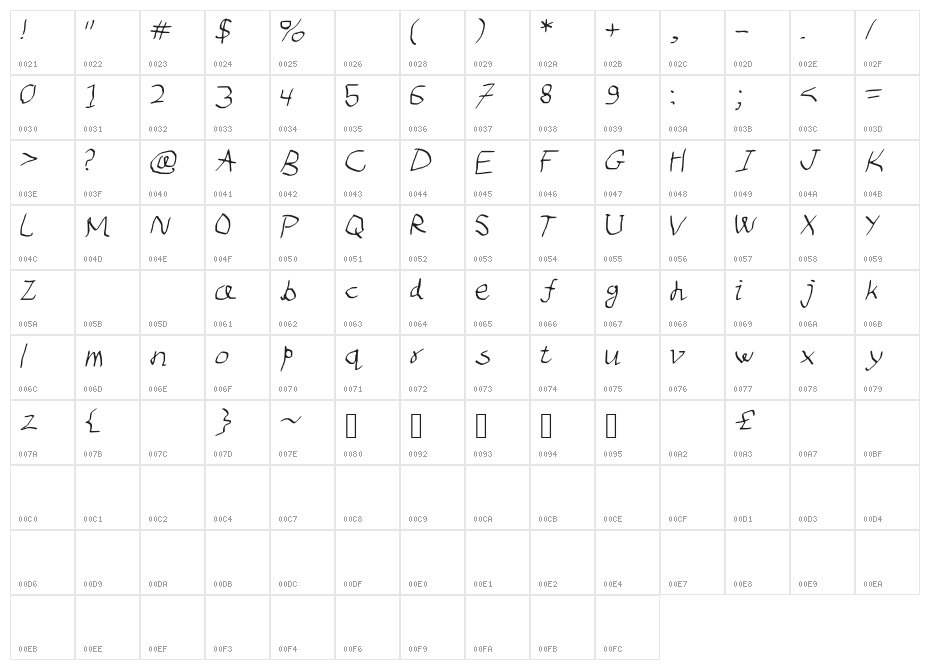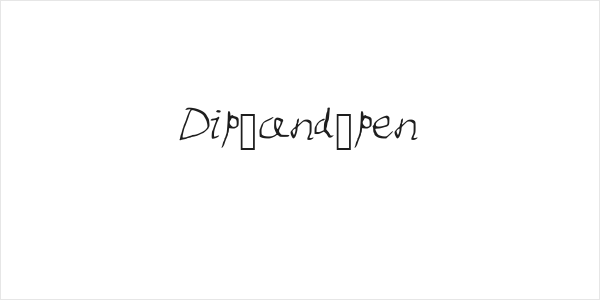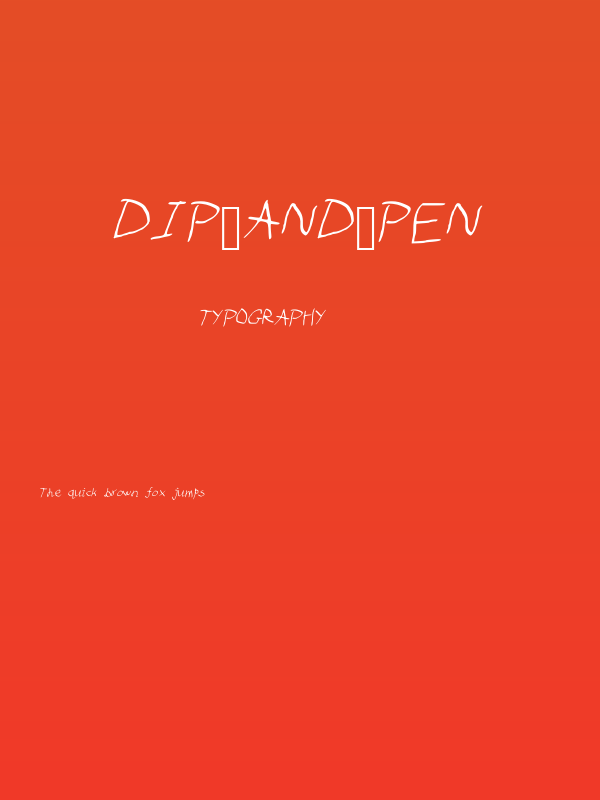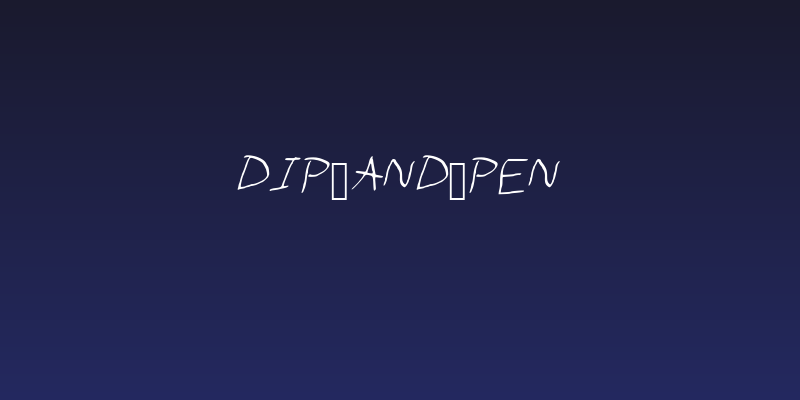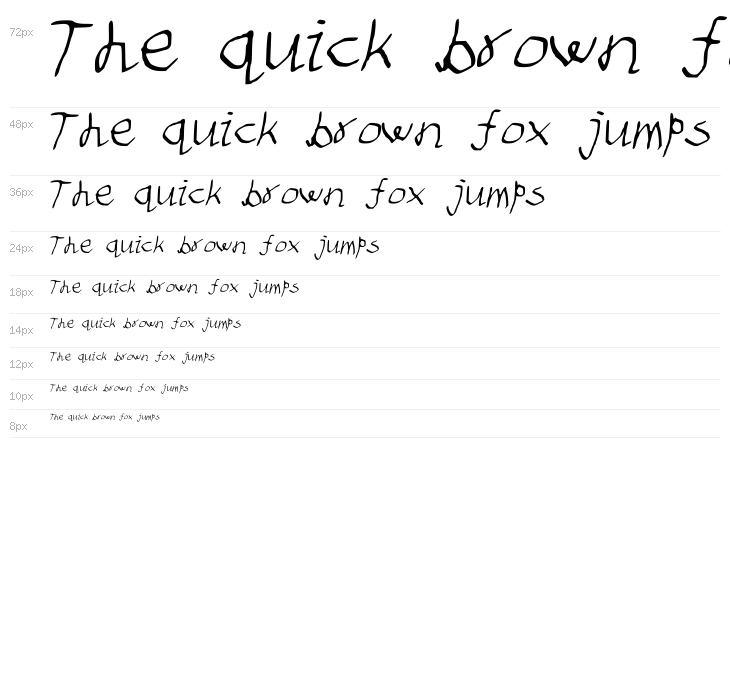
Dip_and_pen Font
Dip_and_pen Description
This font embodies a handwritten style with a casual and organic feel, reminiscent of ink on paper. The characters are slightly irregular, adding a personal touch that mimics natural handwriting. The strokes vary in thickness, providing a dynamic and lively appearance. The uppercase letters are bold and assertive, while the lowercase letters maintain a consistent flow, enhancing readability. Numbers and special characters follow the same handwritten aesthetic, ensuring uniformity across all elements.
| Use Case | Creative projects, personal notes, invitations |
| Proposed Projects | Ideal for personal notes, invitations, greeting cards, and creative projects that require a personal touch. |